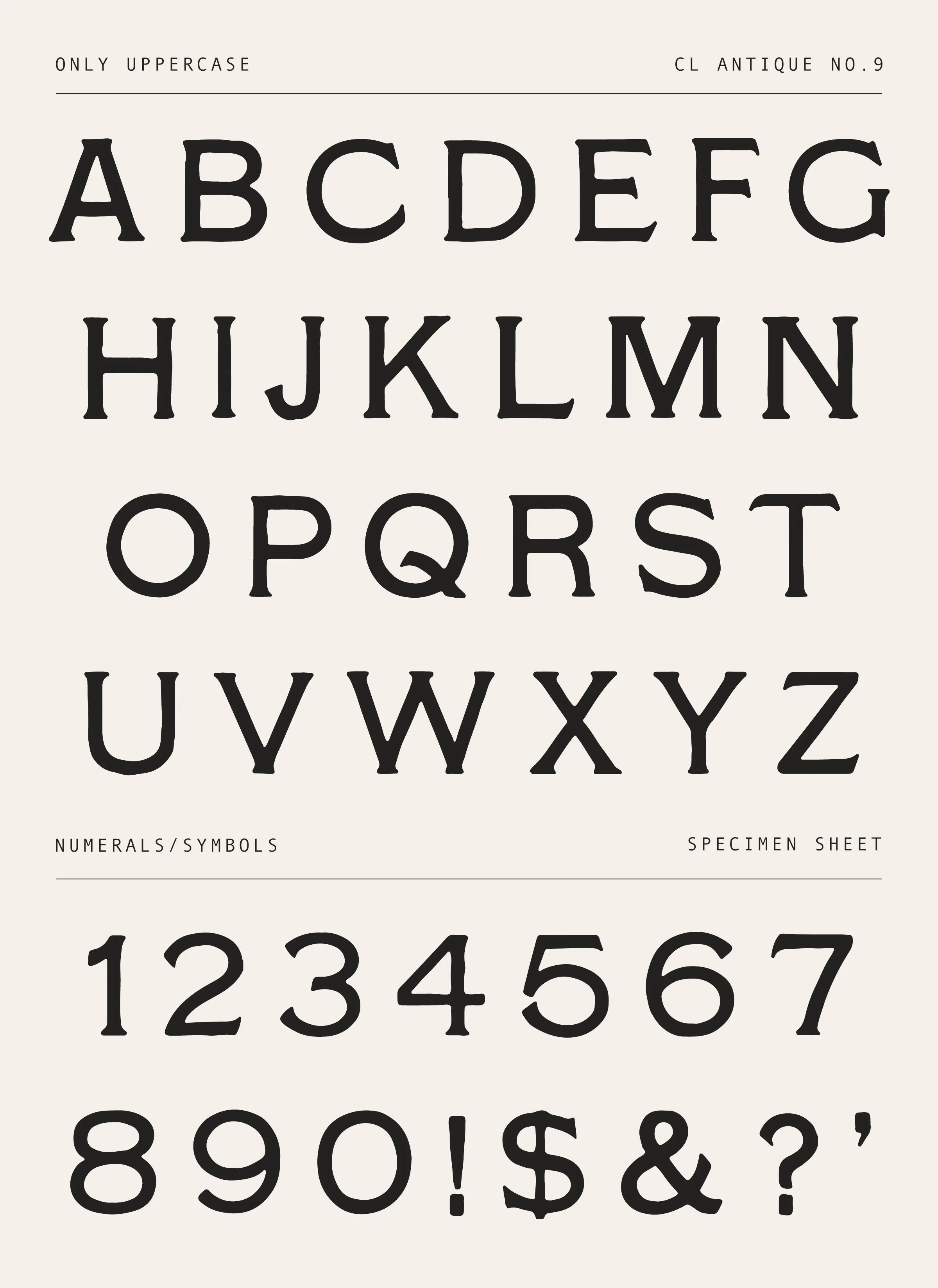
Classic Roman-Inspired Display Font – Bold Serif with Antique Texture (CL Antique No.9)
We’re breathing new life into antique type!
This font is part of our growing collection of restored typefaces, carefully revived from original specimens in the Century Library archive. Each one is a direct translation of the past – scanned, cleaned up, and converted into a working font so you can actually use these historic letterforms, not just look at them.
These aren’t modern interpretations or redesigns. What you see is what was once printed – charming imperfections and all. The character set is limited to what was available in the original source material, which varies from font to font.
Perfect for adding an authentic vintage feel to your designs – whether you’re working on a book cover, a poster, branding, or just something personal – these fonts carry all the texture, age, and personality you’d expect from type that’s over a century old.